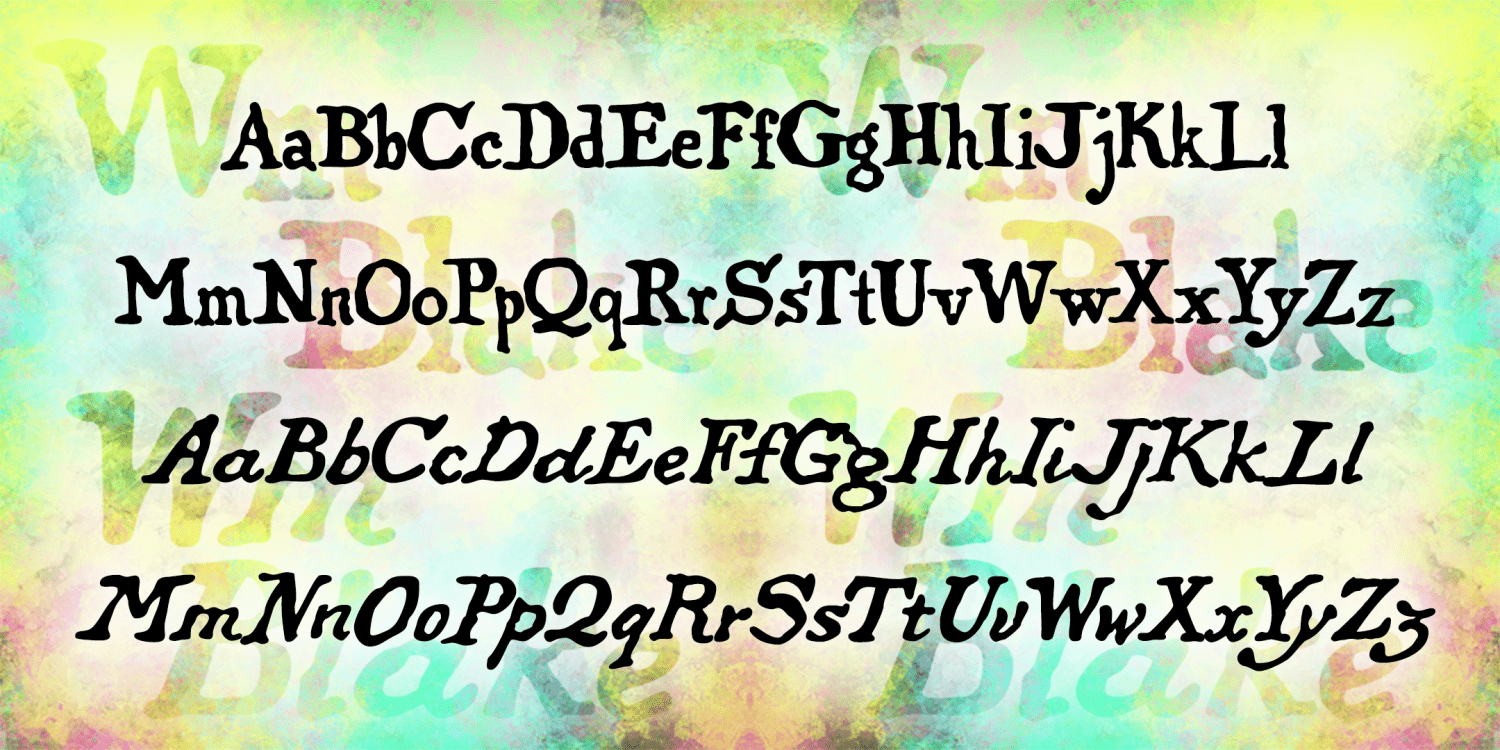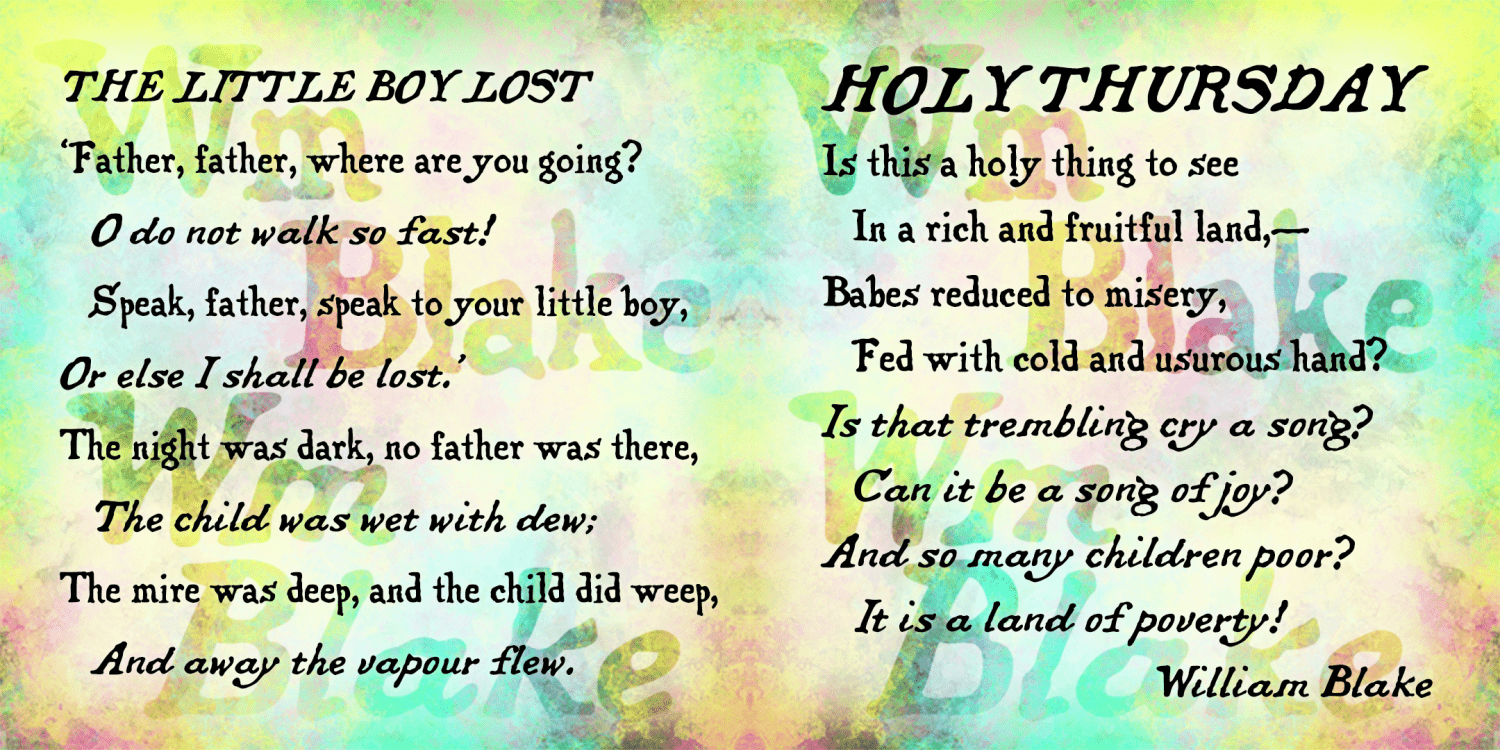
WM Blake
The Wm Blake fonts were inspired by the work of the great English poet and artist. These fonts maintain the romantic charm of Blake's original hand lettering—quite different from typeset—in both the roman and italic forms as he used.
William Blake (1757-1827) wrote, illustrated, lettered, printed, and hand-colored his "Songs of Innocence" and "Songs of Experience", inventing a new form of printmaking along the way, all very inspirational to me as a printmaker and font designer.